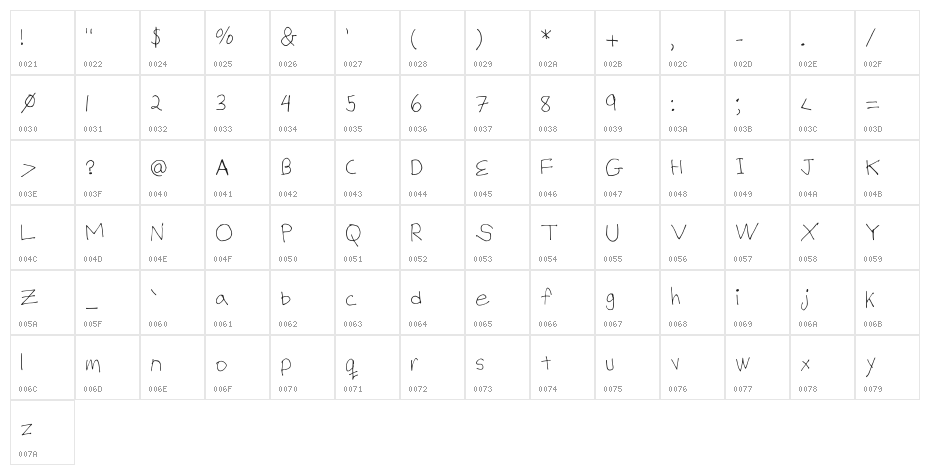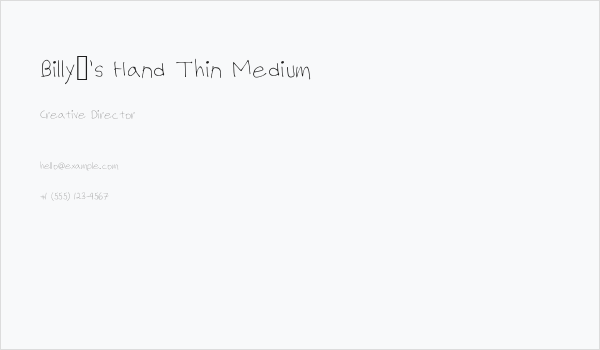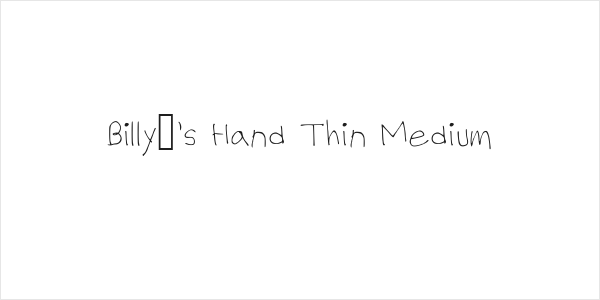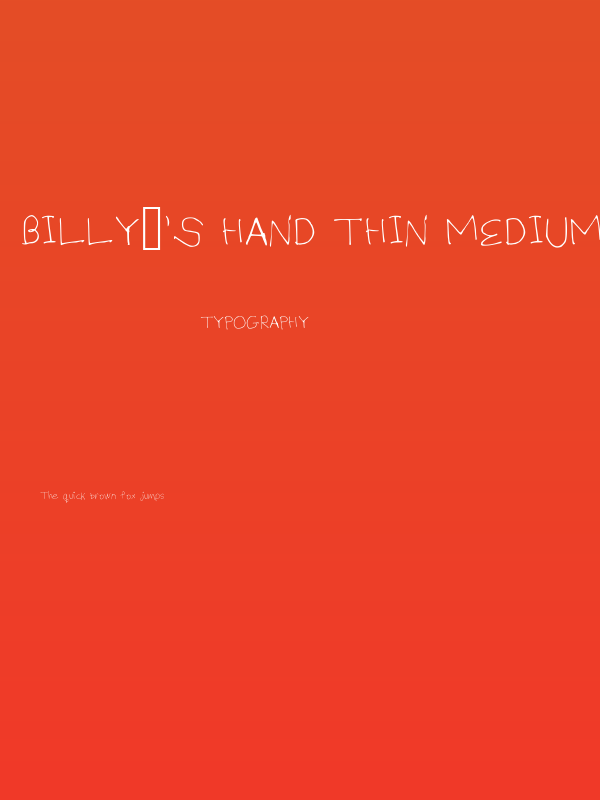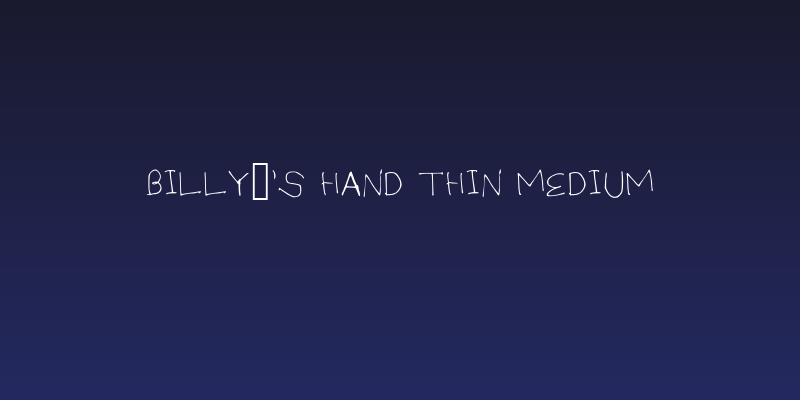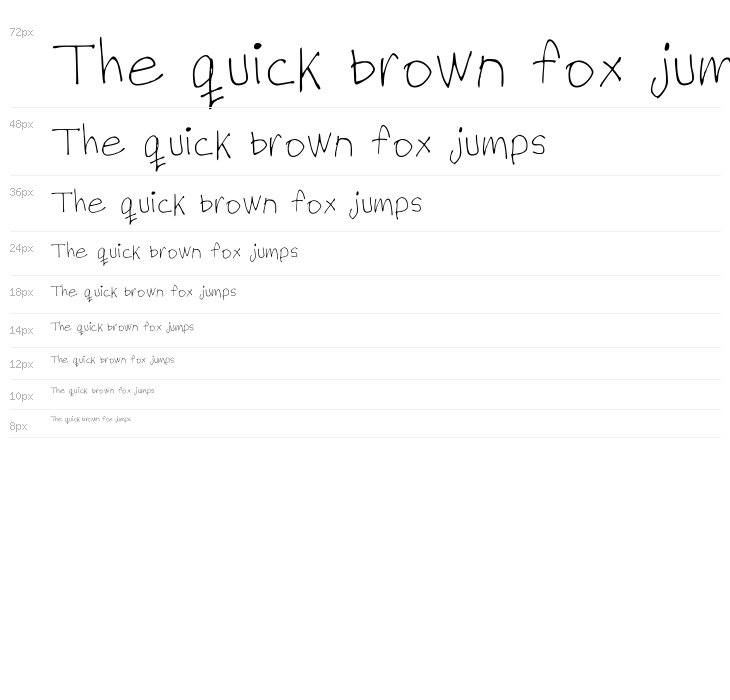
Billy's Hand Thin Medium Font
Billy's Hand Thin Medium Description
This font exudes a casual, handwritten style that mimics the natural flow of penmanship. The characters are slightly irregular, giving it a personal and informal touch. The strokes are thin and uneven, adding to its hand-drawn appearance. Each letter has a unique charm, with playful curves and angles that suggest a sense of spontaneity. The font maintains good legibility despite its whimsical nature, making it suitable for a variety of creative applications. Its distinctive style is perfect for projects that require a personal or artistic flair.
| Overall Style | Casual, Artistic |
| Use Case | Logos, Invitations, Personal notes |
| Proposed Projects | Ideal for greeting cards, personal notes, artistic projects, and informal branding. |